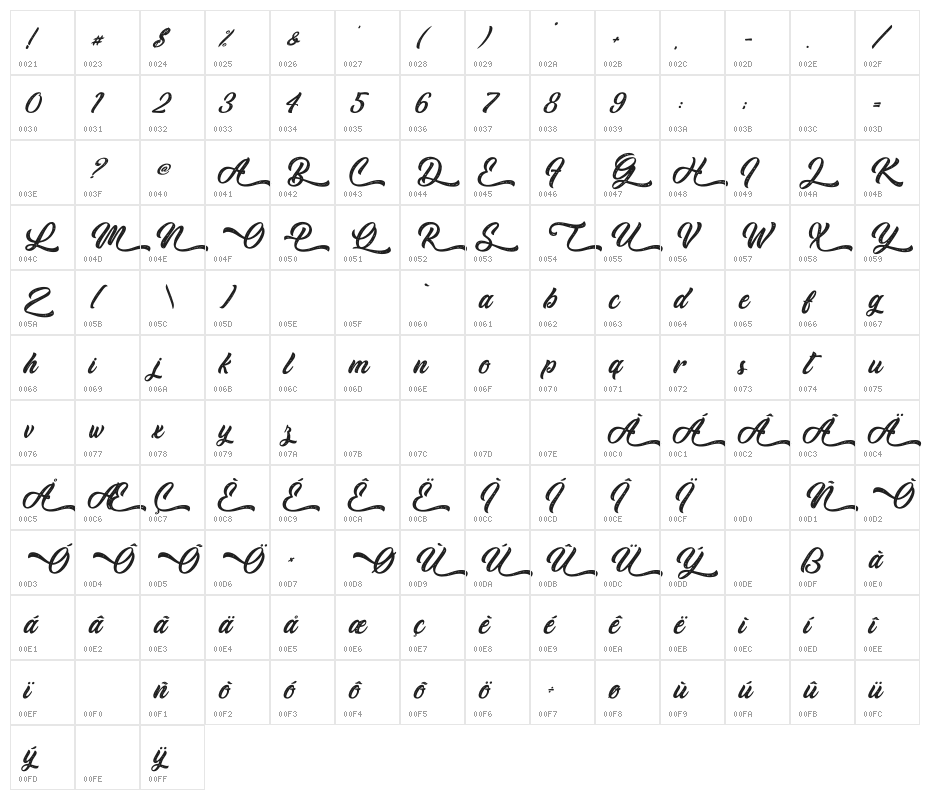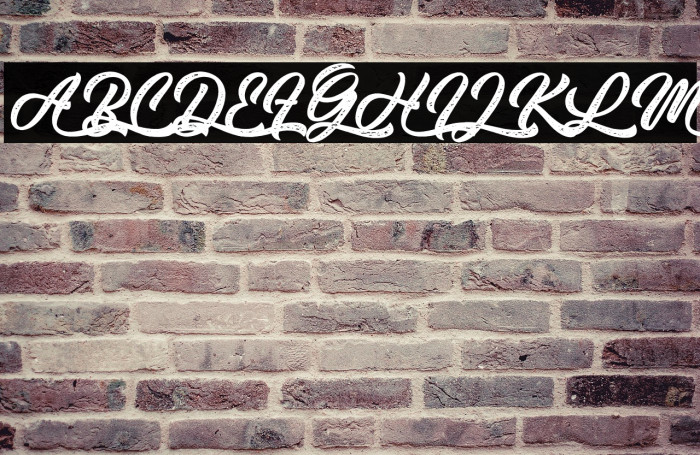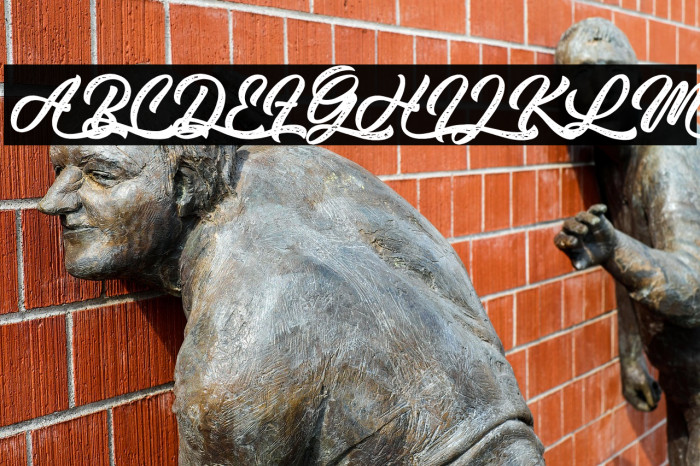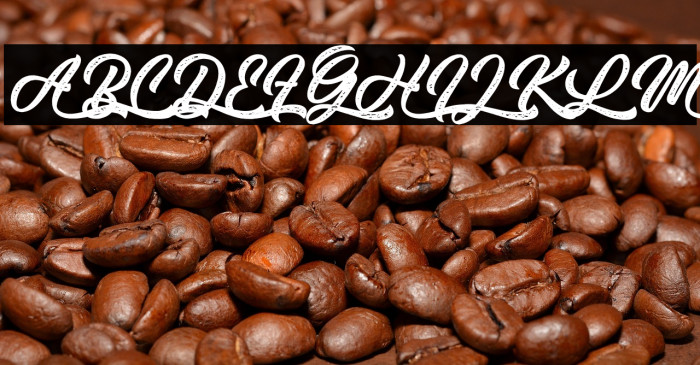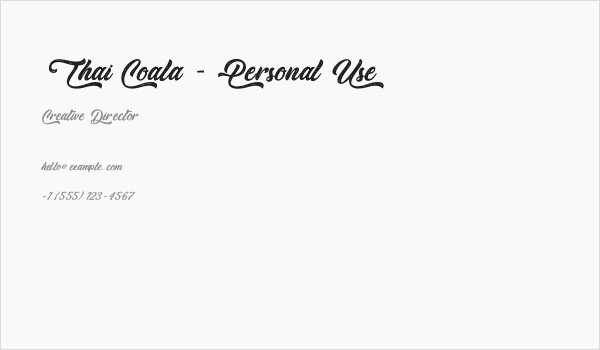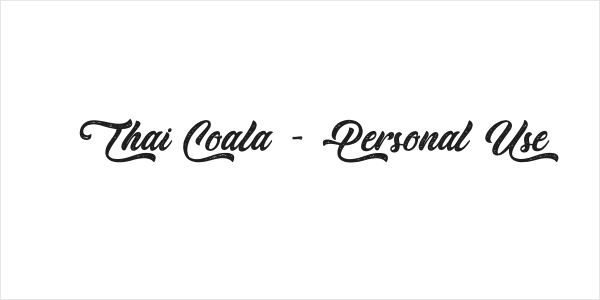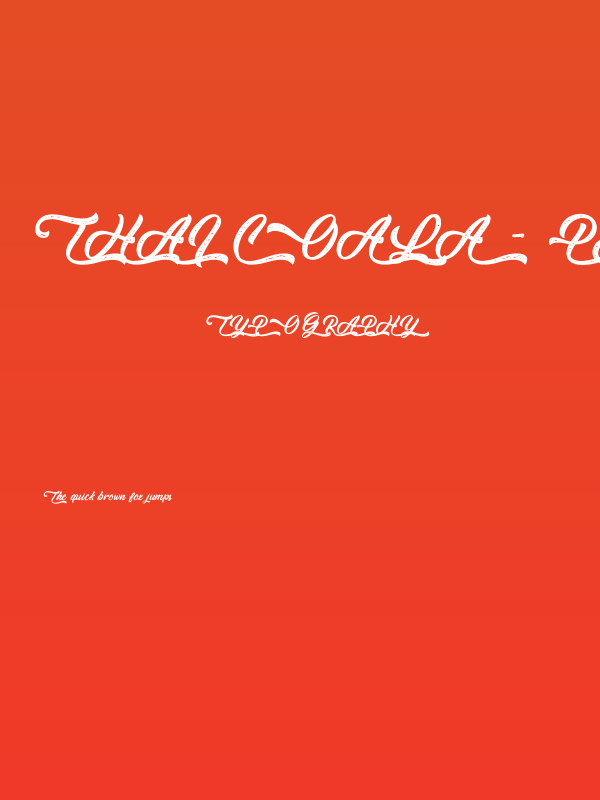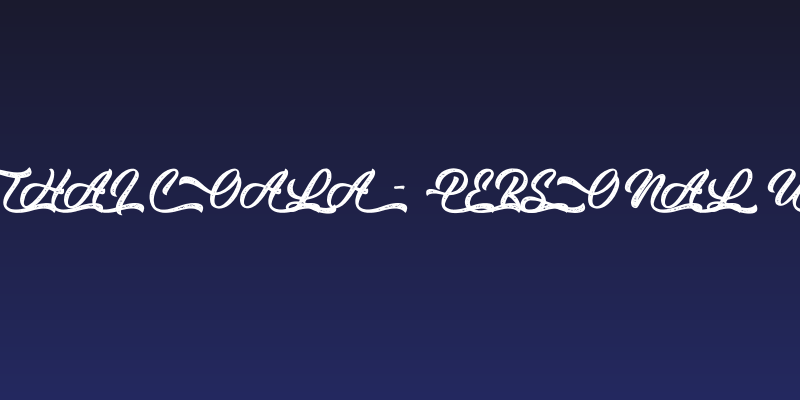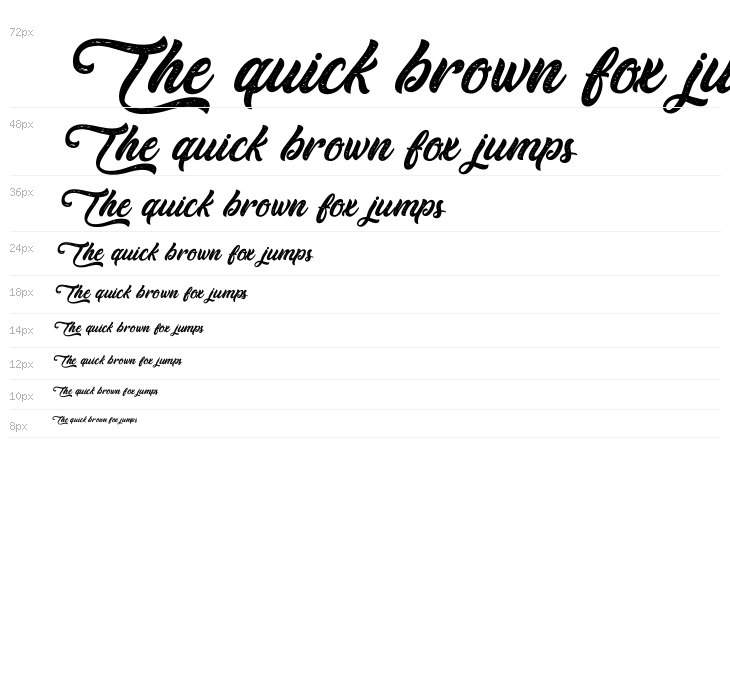
Thai Coala - Personal Use Font
Thai Coala - Personal Use Description
This font features a bold, cursive style with a playful and dynamic appearance. The letters are interconnected with smooth, flowing lines, creating a sense of movement and elegance. The uppercase letters are particularly ornate, with exaggerated loops and swirls that add a decorative touch. The lowercase letters maintain the cursive style but are slightly more restrained, ensuring readability. The numbers and special characters follow the same aesthetic, providing a cohesive look across all glyphs. The texture of the font gives it a slightly distressed, hand-drawn feel, adding to its charm and uniqueness.